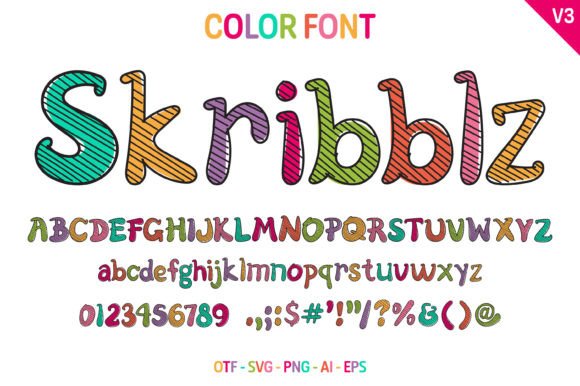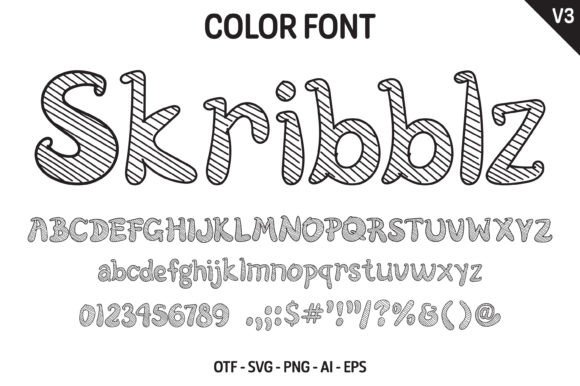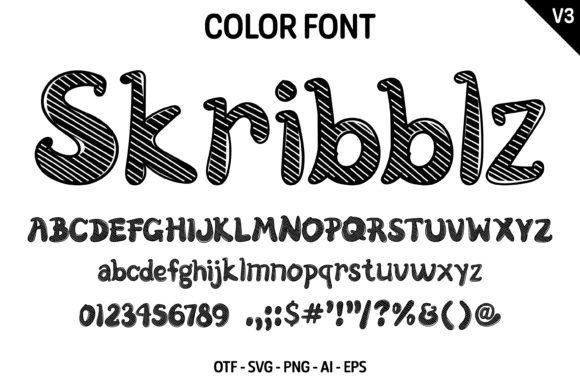
Introduction to Skribblz V3 Font
Skribblz V3 is a playful and fun typeface that features a hand-drawn, scribbled design, making it a great choice for designs aimed at children or anyone looking to add a touch of playfulness to their project.
Despite its playful appearance, Skribblz is still highly legible and easy to read This font would work well for a variety of designs, such as book covers, posters, invitations, and more.
Key Features of Skribblz V3 Font